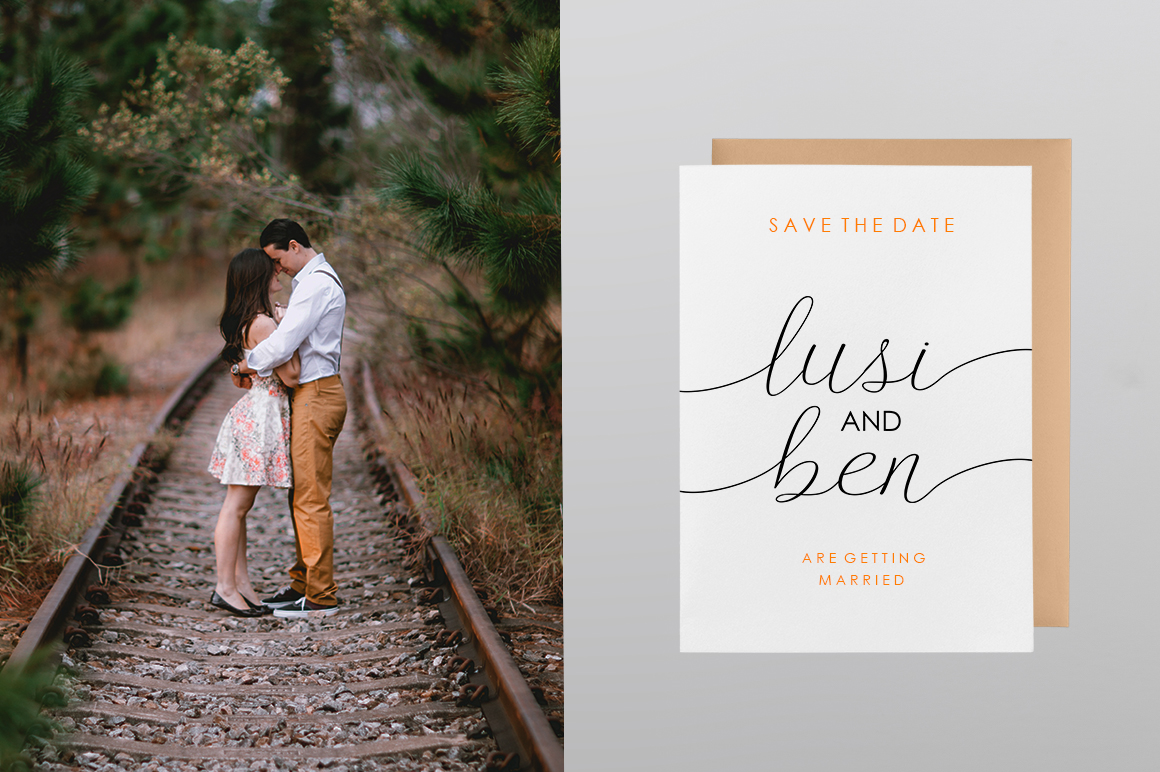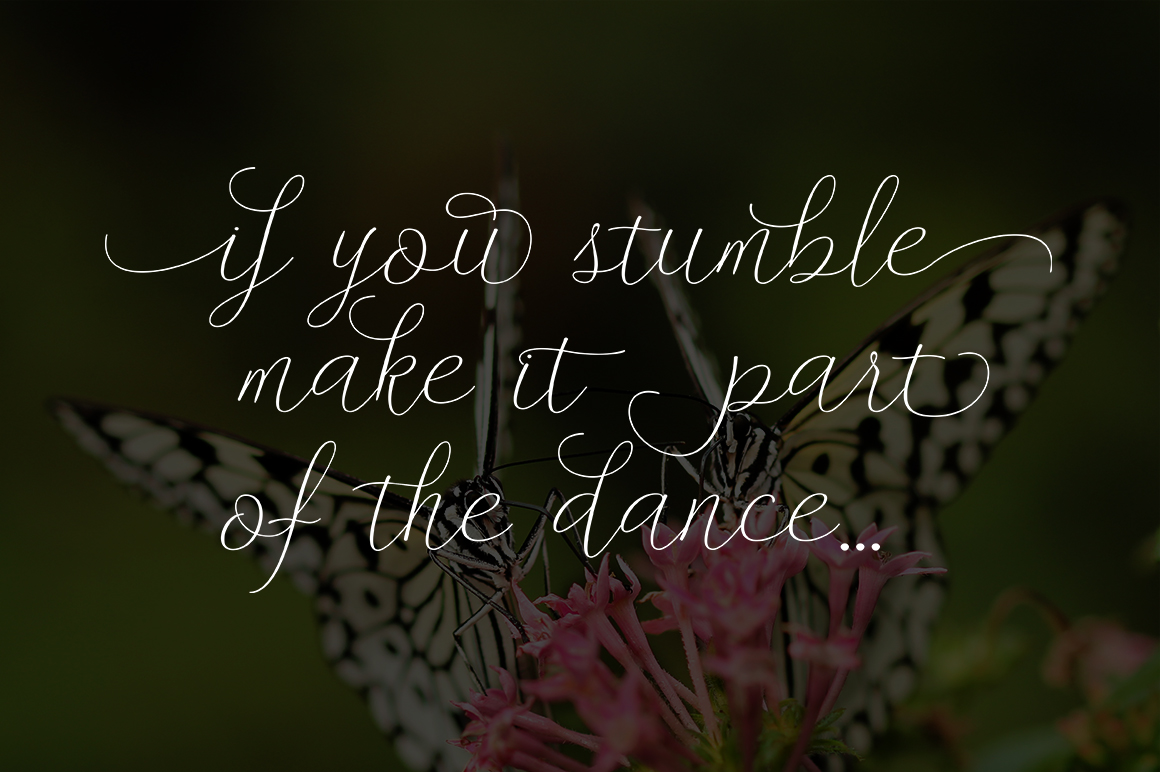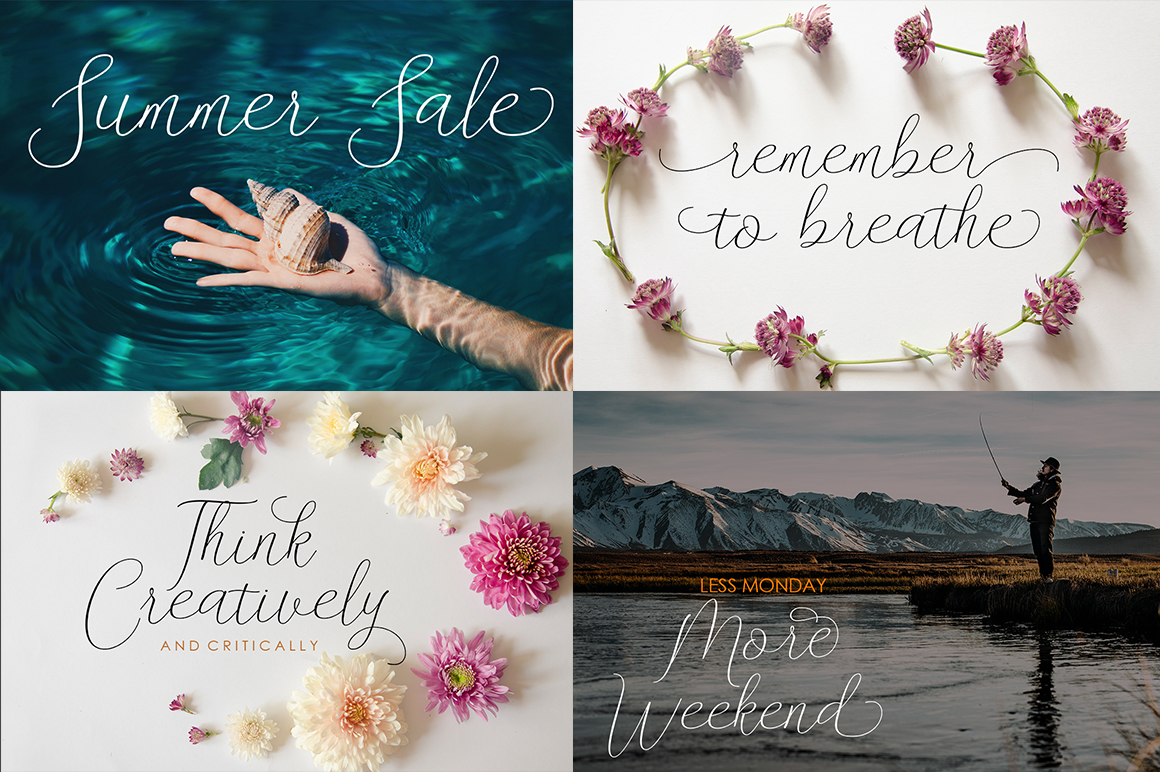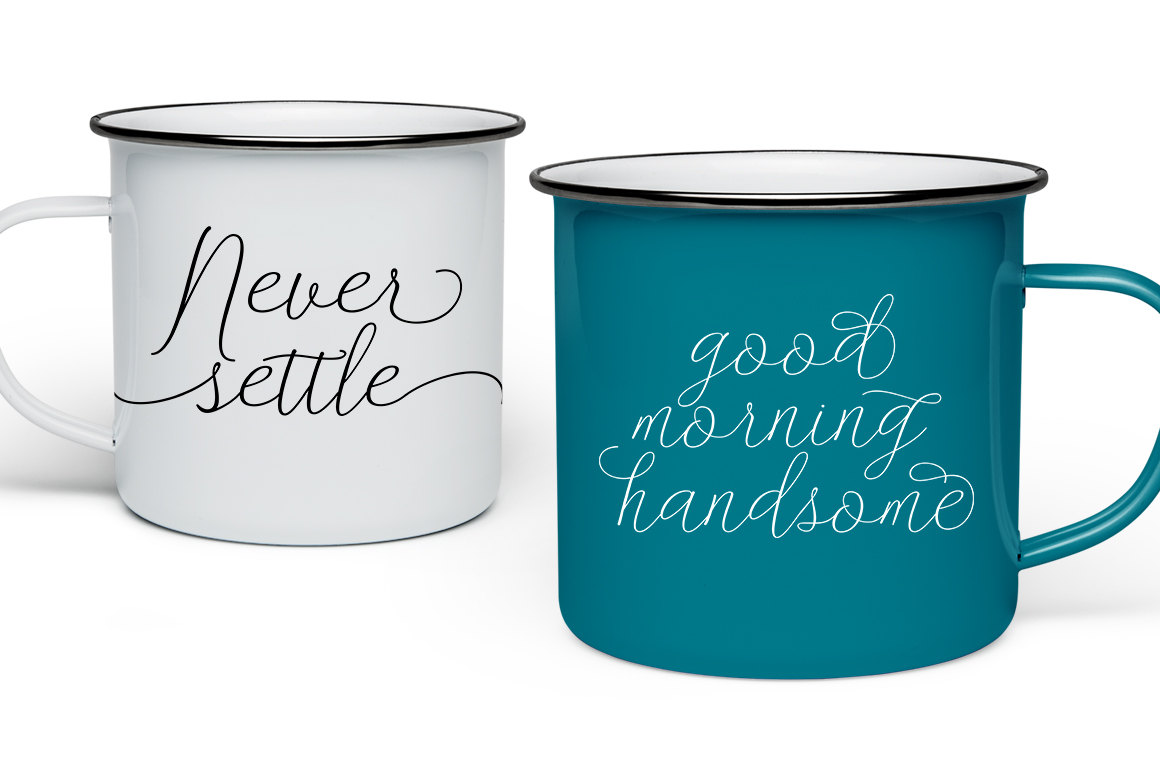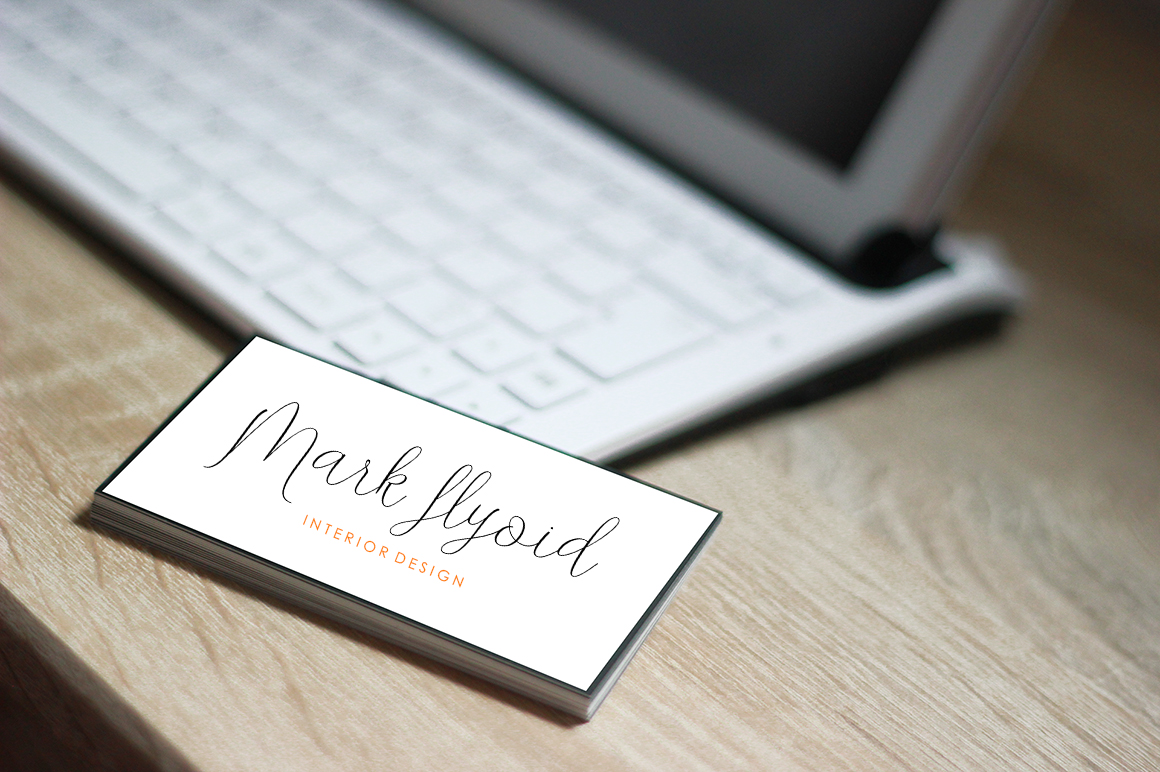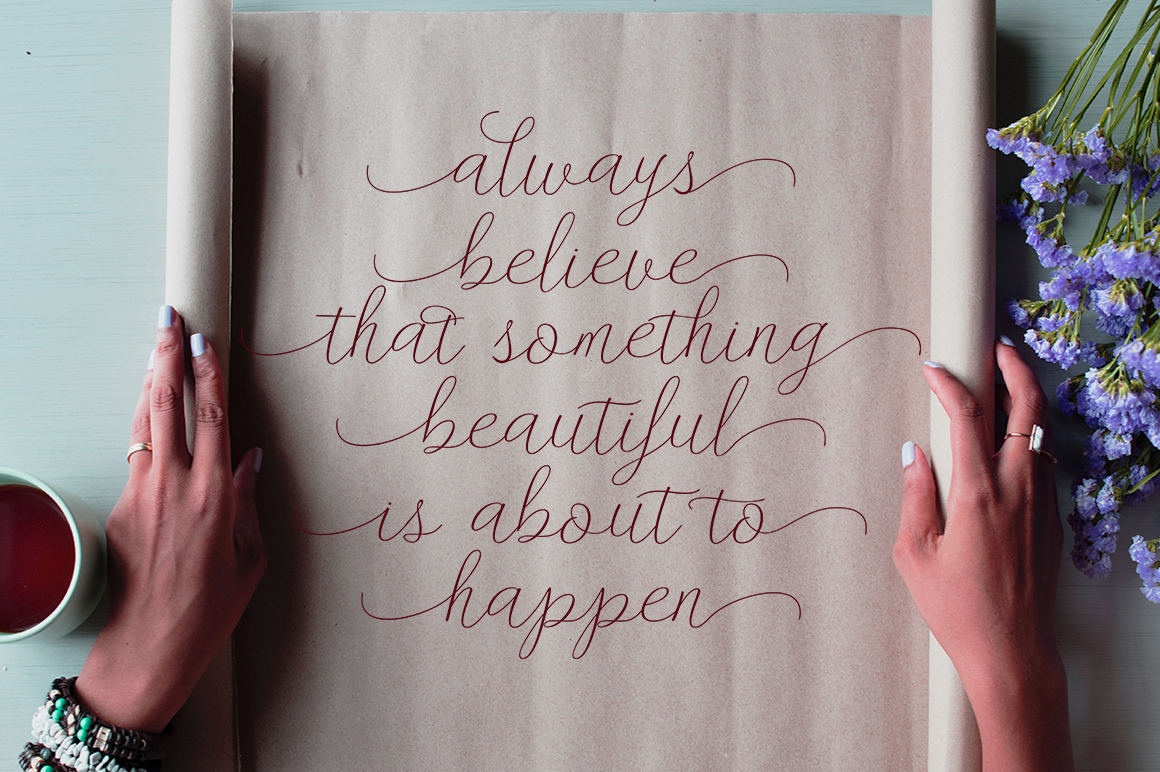
Danliny Font
About Danliny Font
Danliny is a pretty and contemporary font, elegant enough to be used for the most special of your designs. Romantic and simple, Danliny won’t compete with your designs but instead enhance them to their fullest potential.